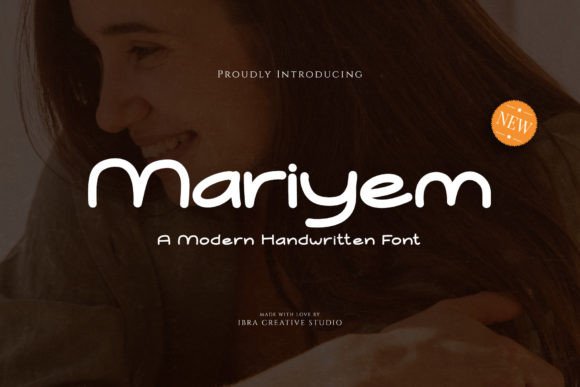
Introducing Mariyem, a fascinating and vibrant script font that dances with energy and playfulness. This captivating font, designed by ibracreative, is a symphony of stylishly uneven strokes and charming imperfections, capturing the essence of spontaneity and creativity.
With Mariyem, your designs will burst into life, radiating a contemporary and joyful flair. Its unique personality makes it the perfect choice for logos that demand attention, social media graphics that sizzle with energy, and invitations that spark a sense of delight.
Mariyem is not just a font; it's an experience. Its hand-drawn style infuses your creations with a touch of human warmth and relatability, making them more than just visual representations - they become heartfelt expressions of your brand's identity.
If you seek a font that ignites creativity, look no further than Mariyem. It's an emblem of modern calligraphy, a testament to innovation, and a surefire way to leave a lasting impression. Join the design revolution and let Mariyem lead your projects to new heights of visual appeal and emotional resonance.
Embrace Mariyem and unleash the boundless energy and playfulness within your designs.